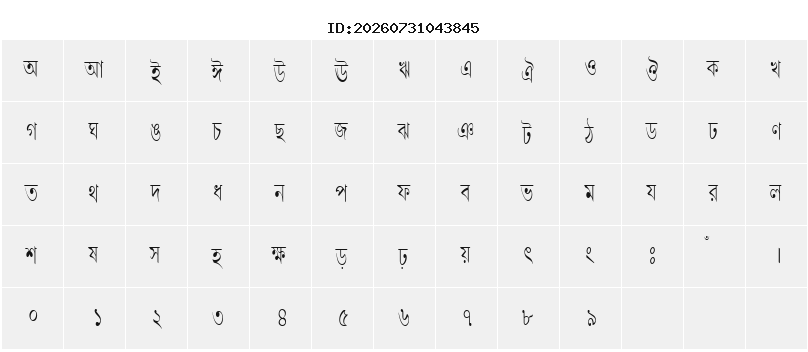
• Font Name: LipiCon
LipiCon.ttf is a modern, elegant sans-serif font designed for ultimate readability and visual harmony. Perfect for branding, headlines, web design, and print materials.